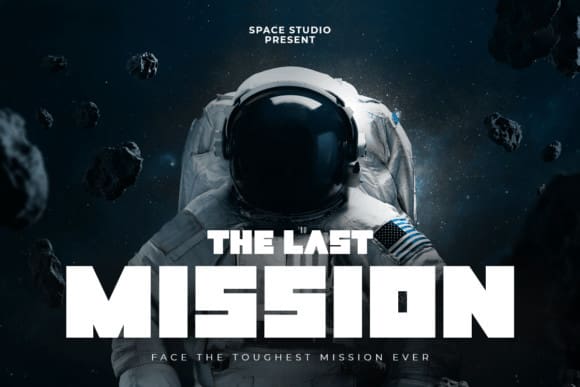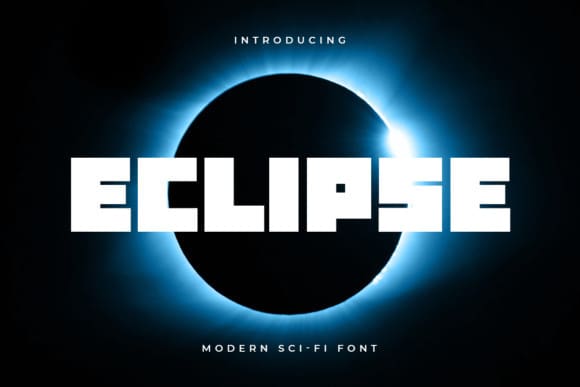
Eclipse Font
Eclipse Font is a Modern Sci-fi font that is created especially for Technology, Sci-fi, modern, and more stand-out typography needs, with extra alternative styles that make your design more memorable. It’s so perfect to add your style and headline overview for future, technology, actions, and technology theme. And specially for this font, we crafted it for bold action style and modern feels so enjoy creating any project that will show your main idea out.